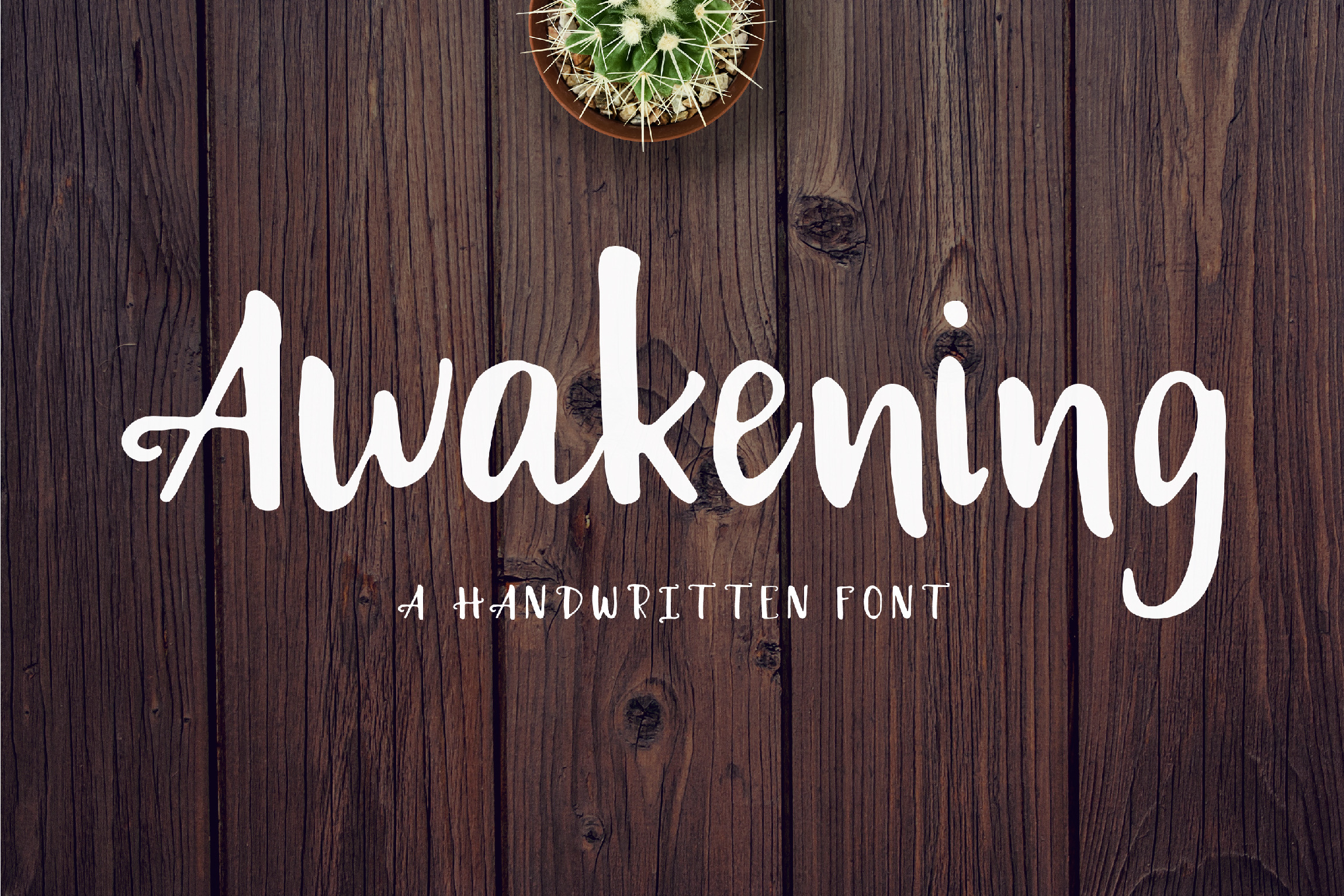
Awakening | Handwritten Font
Awakening, a handwritten font!
Awakening is a fun handwriting font blended with a unique twist on the serifs. The font is perfect for your design needs such as branding, greeting cards, invitation, special events, stationery, scrapbooking, home goods, etc.